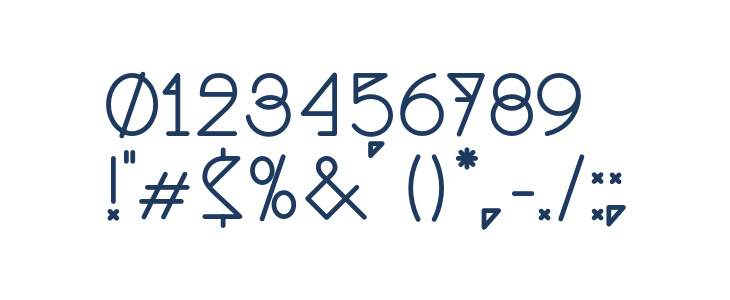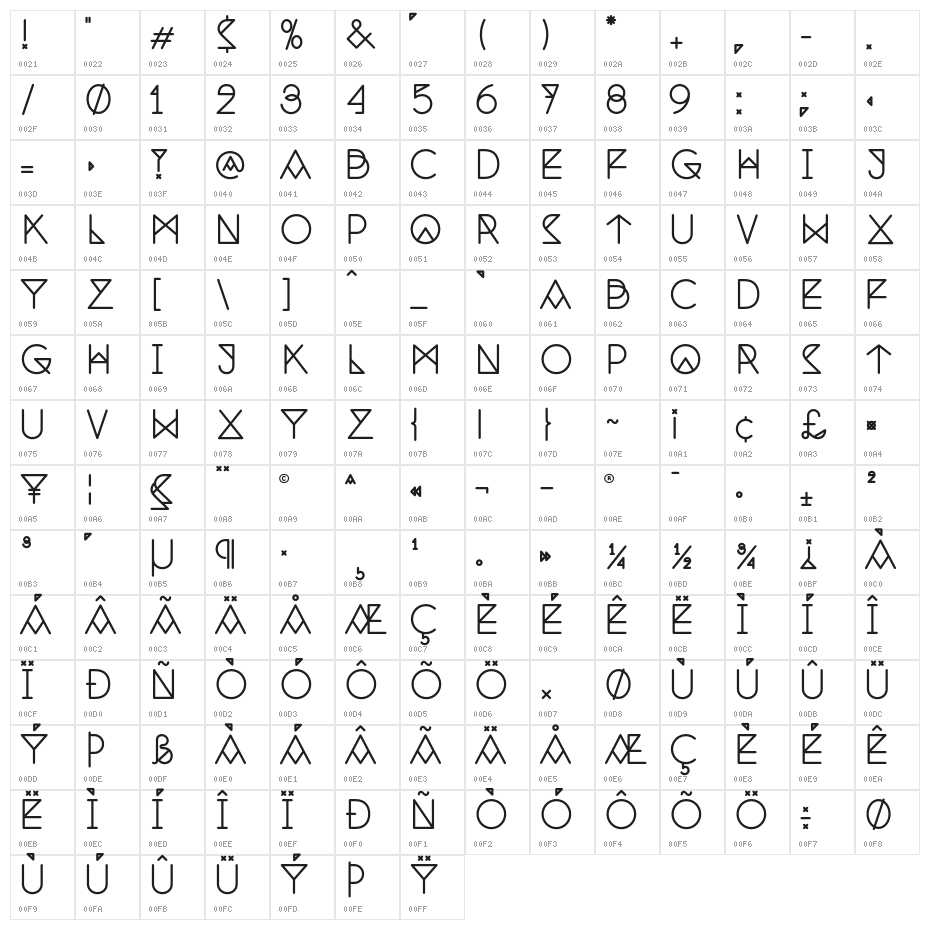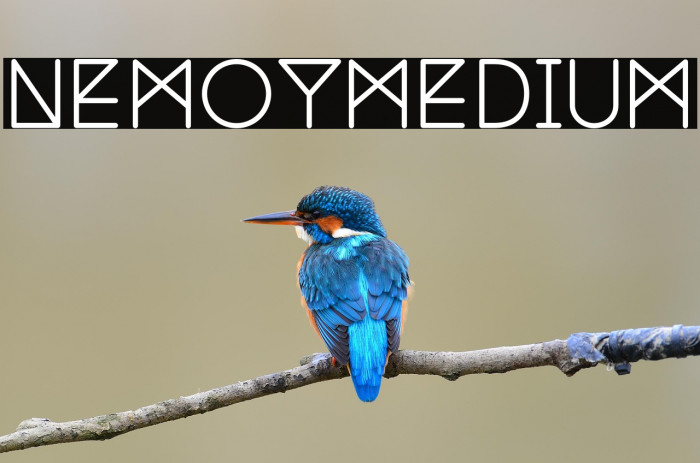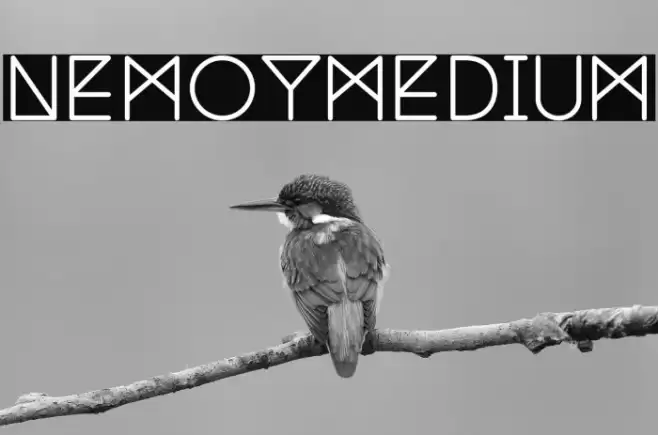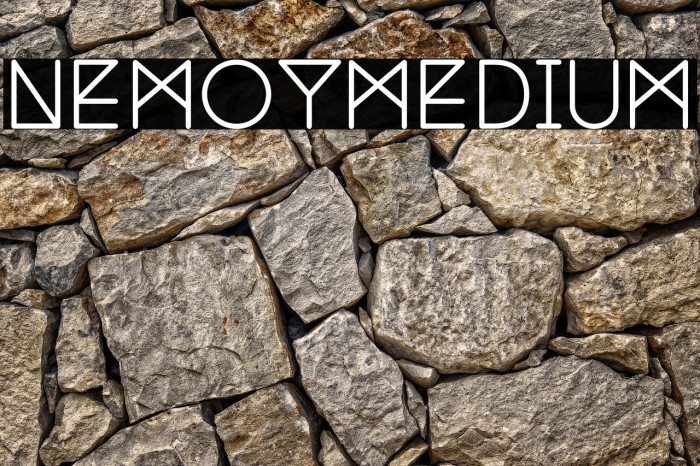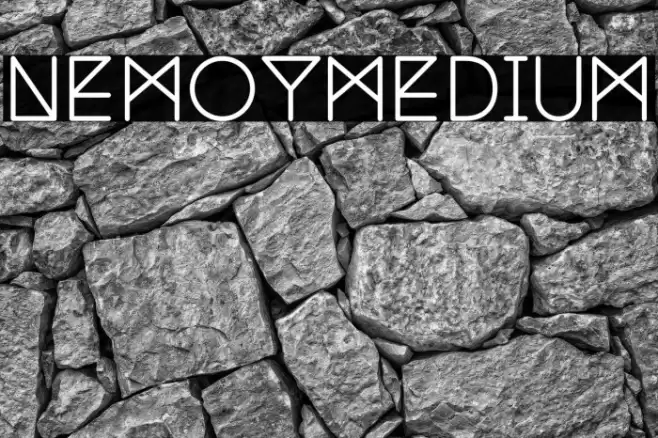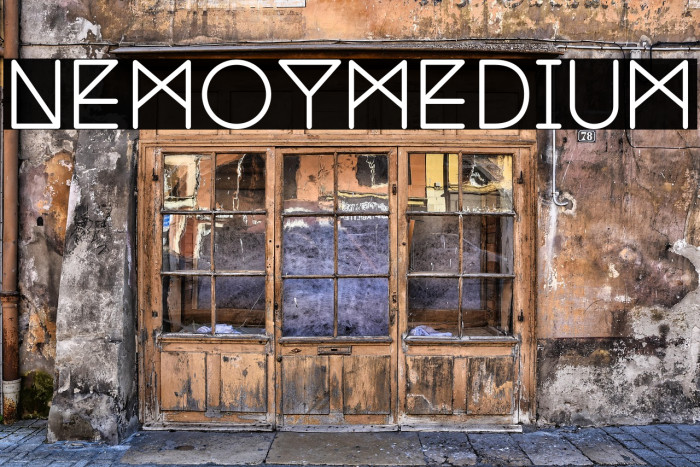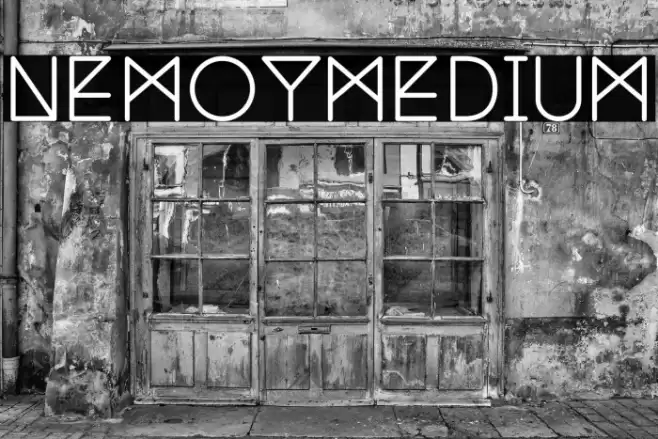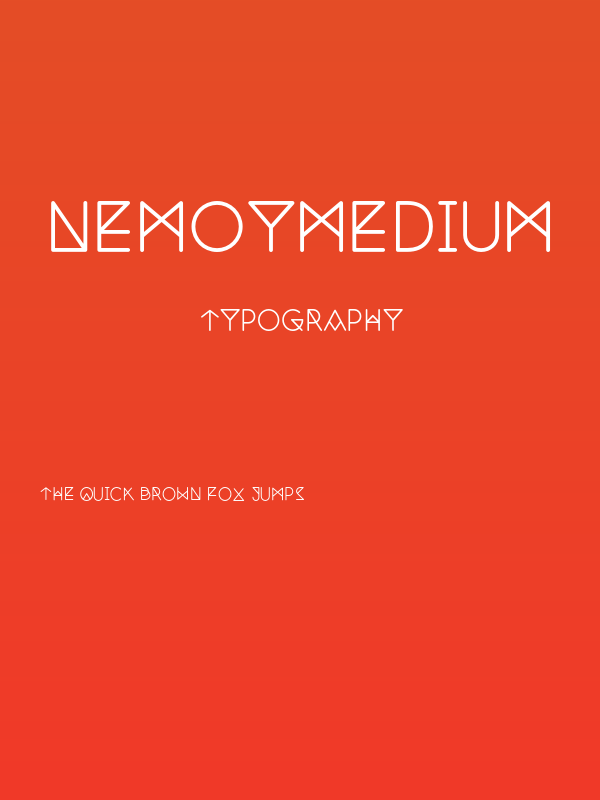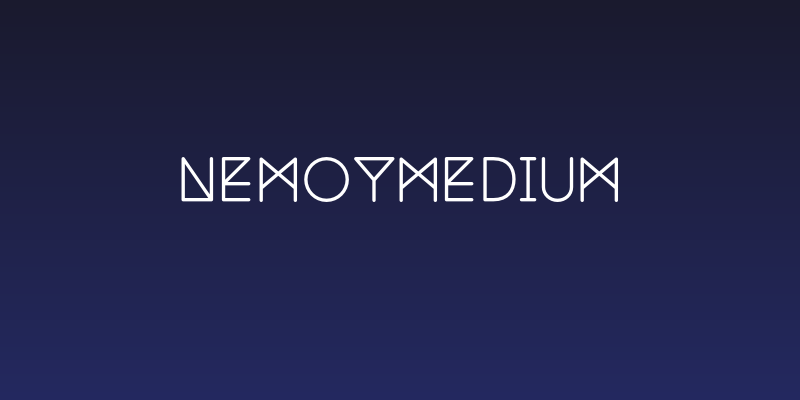
NemoyMedium Font
NemoyMedium Description
This font features a geometric and futuristic design, characterized by its angular and linear elements. The uppercase and lowercase letters share a consistent style, with sharp edges and a minimalist aesthetic. The numerals and special characters maintain this theme, offering a cohesive look across all glyphs. The font's unique structure makes it stand out, with each character crafted to convey a sense of modernity and innovation. Its clean lines and distinctive shapes make it suitable for projects that require a contemporary and edgy appearance.
| Proposed Projects | Ideal for tech branding, sci-fi themed designs, modern posters, and innovative product packaging. |